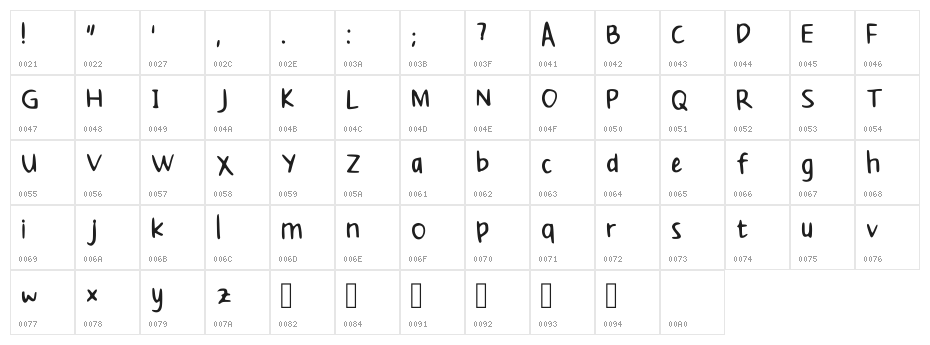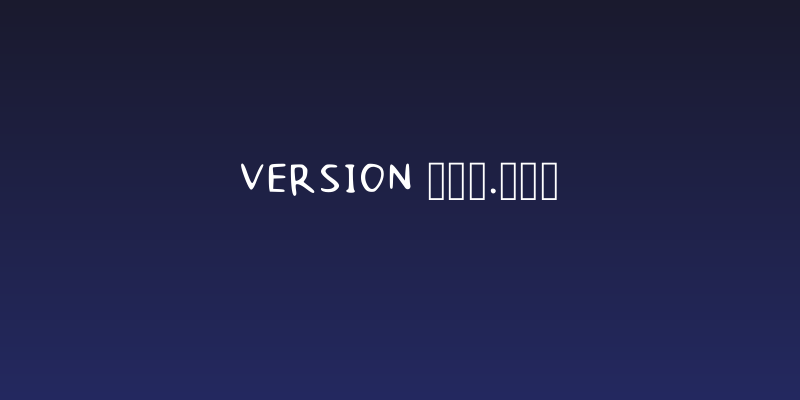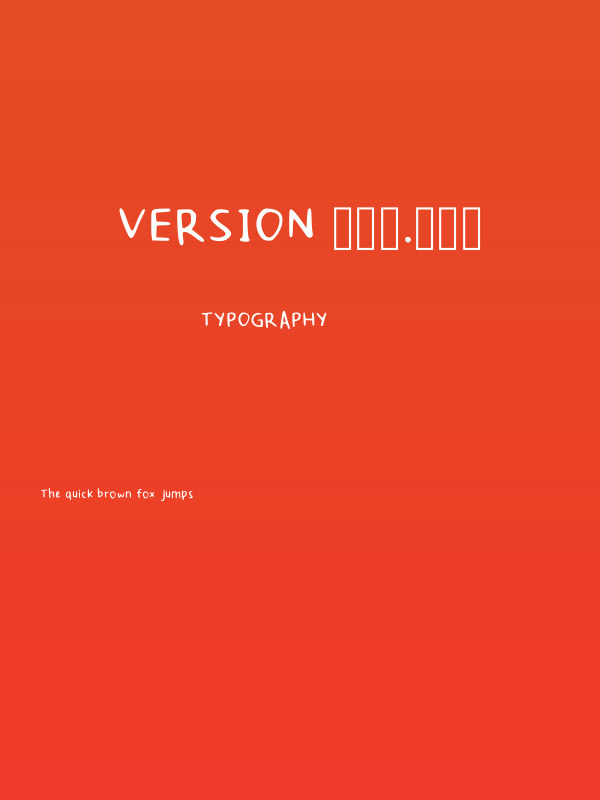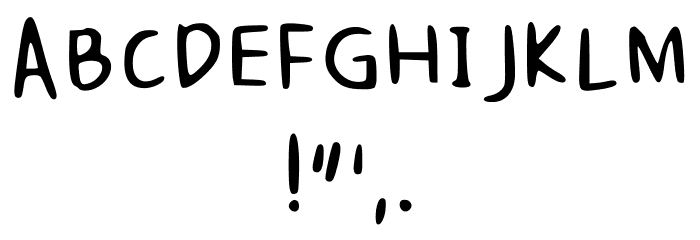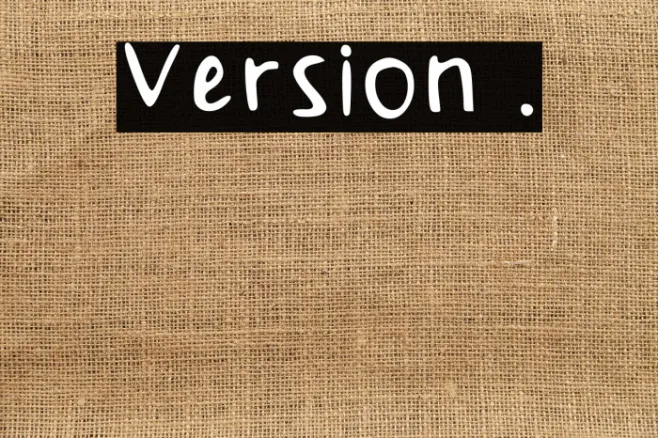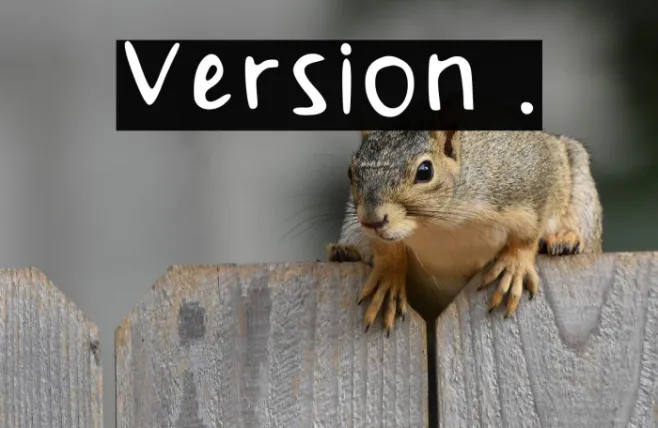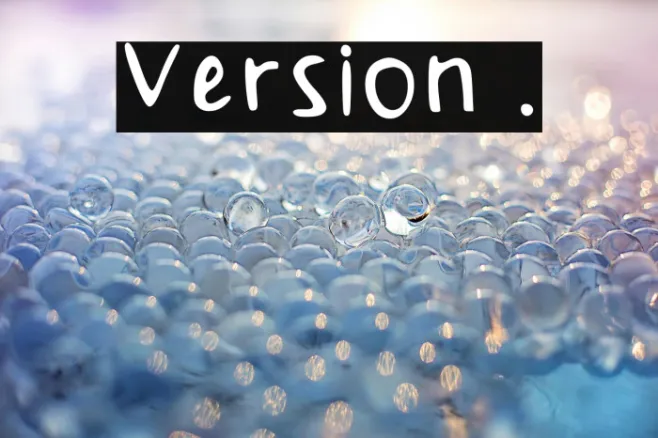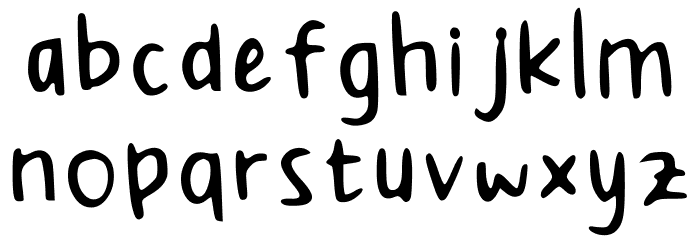
Version 001.002 Font
Version 001.002 Description
This playful and informal font features a handwritten style with a casual and friendly appearance. The characters are slightly irregular, giving it a personal touch that mimics natural handwriting. The strokes are consistent in weight, providing a uniform look across all letters. The uppercase and lowercase letters are distinct, with rounded edges and a slight tilt that adds to the whimsical feel. The numbers and special characters maintain the same playful aesthetic, making this font suitable for projects that require a touch of personality and warmth.
| Use Case | Headlines, Informal text, Personal projects |
| Proposed Projects | Ideal for children's books, greeting cards, personal blogs, and informal branding. |